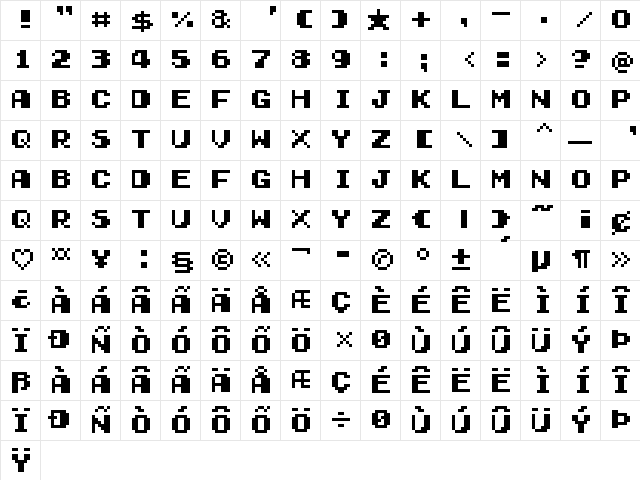
Complete Gamegirl Classic Regular glyph index. Displaying only characters natively supported by Gamegirl Classic Regular font.
Gamegirl Classic wears its vintage influences proudly, with letterforms that recall mid-century signage, classic packaging, and nostalgia-driven design.
Font Pairing: Combine Gamegirl Classic with a simple slab or neutral sans - period-accurate companions reinforce the vintage feel without competing for attention.
Pro Tip: Lean into Gamegirl Classic's period character by pairing it with aged paper textures, muted colour palettes, and vintage illustration styles.